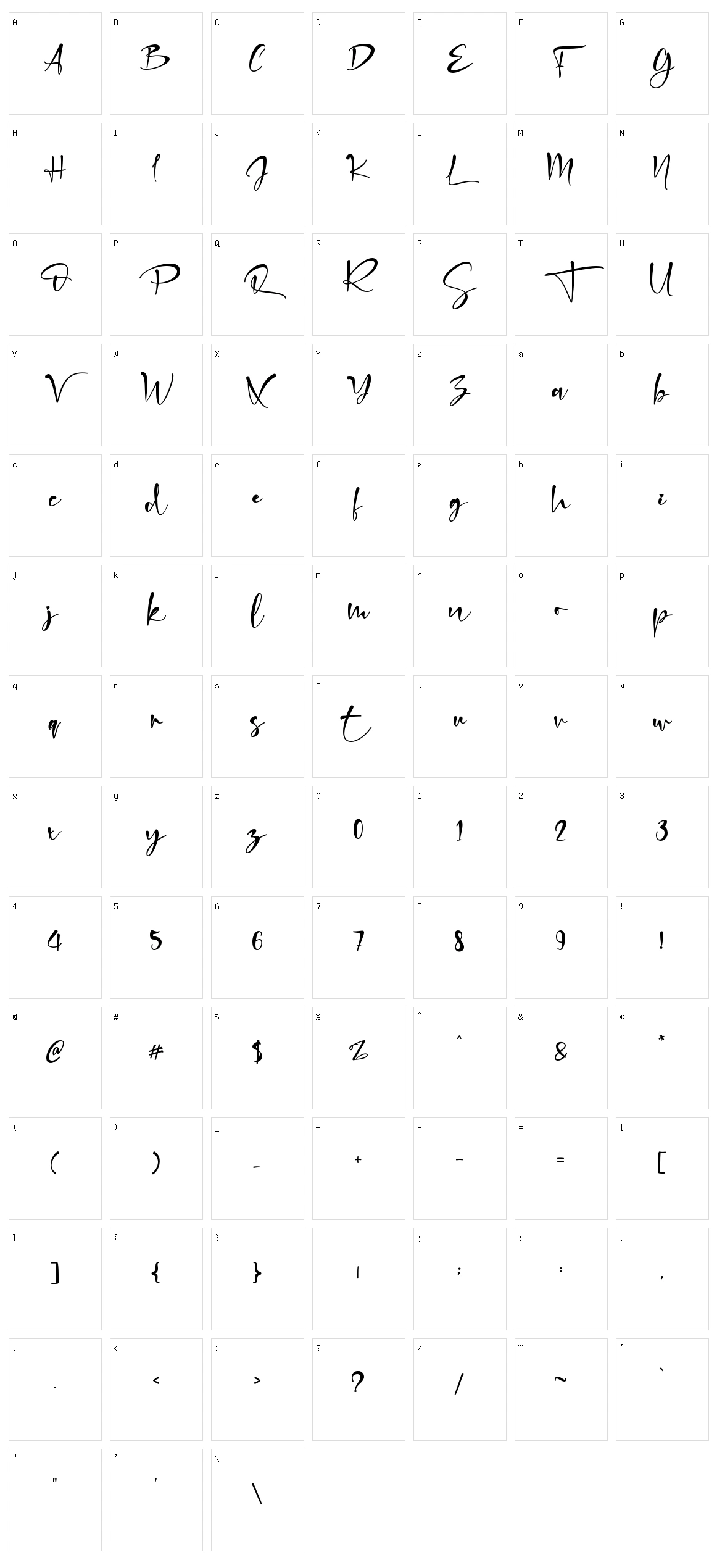
The free font Sabastian is carefully designed by Letterara, showcasing a thoughtful balance of creativity and usability and falls under the Script font style. When you download the ZIP file, it contains only 475.73 KB of font files, making it lightweight and quick to download. Please review the license details below to understand permitted usage and distribution rights. If license information is not available, we recommend using this font for personal projects only or contacting the author directly for commercial usage permissions.